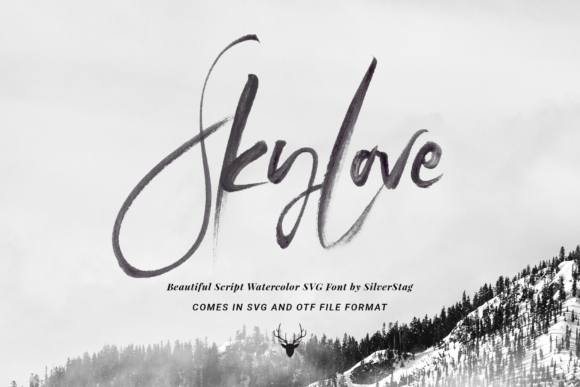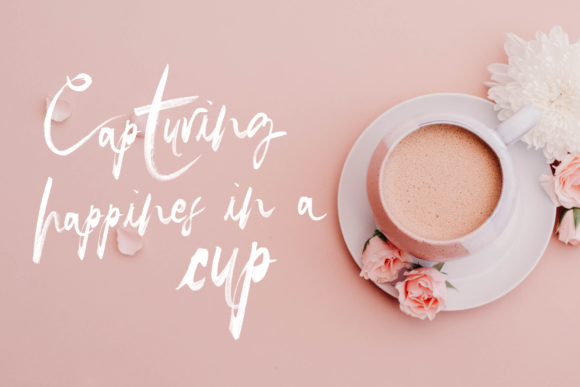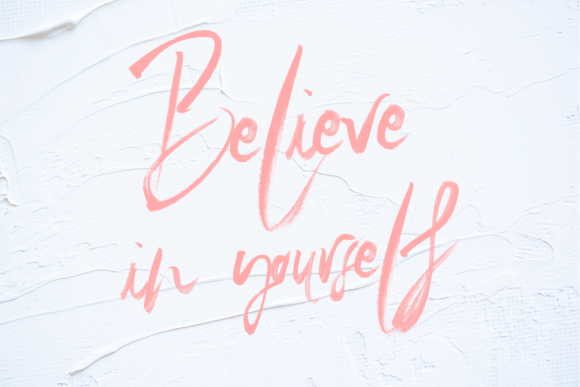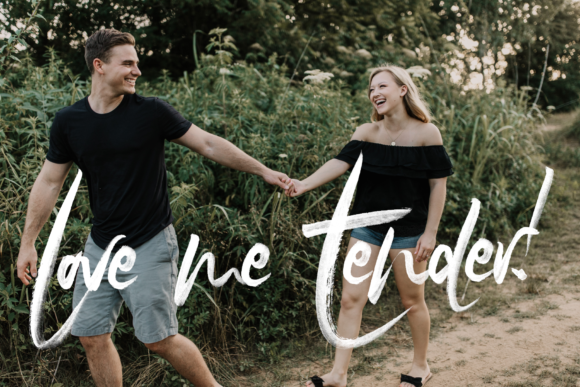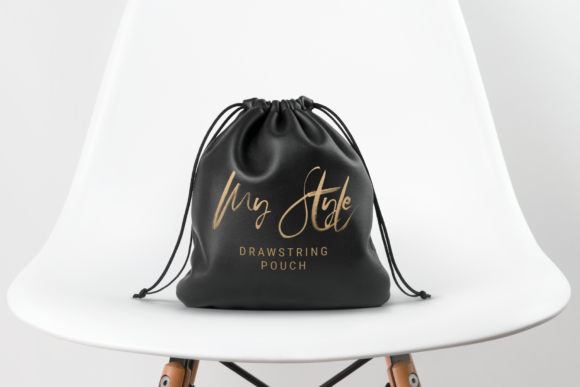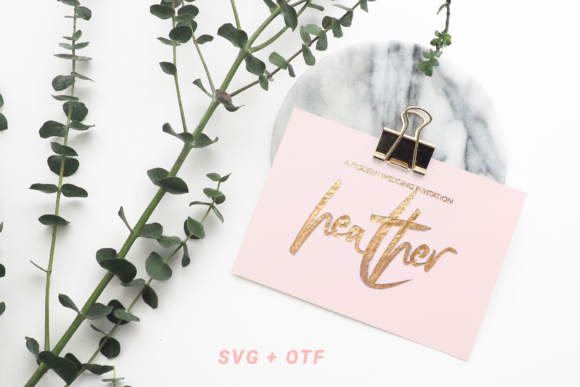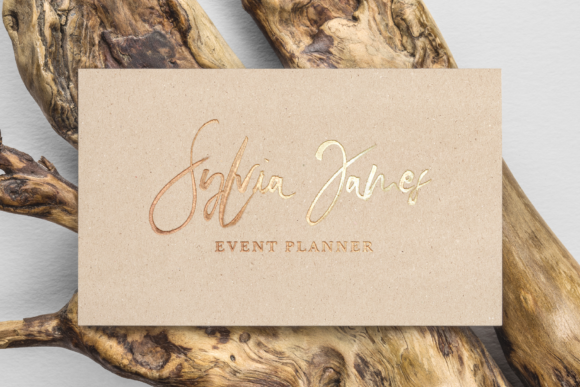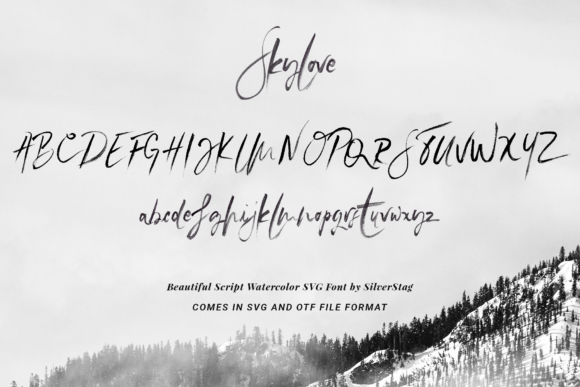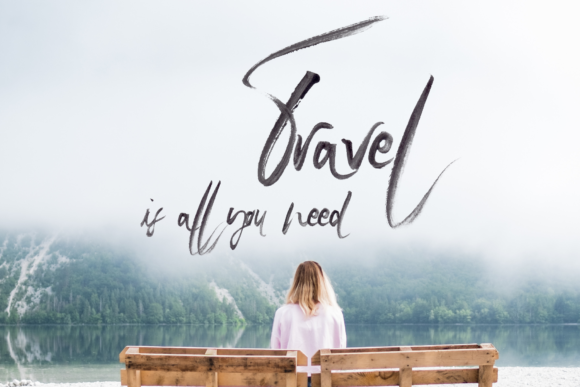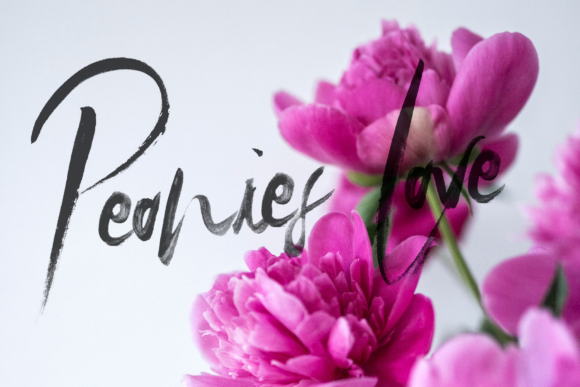
Sky Love Font
About Sky Love Font
Inspired by lovely watercolour art, Sky Love is a beautiful and unique handwritten font with an undeniable charm. Fall in love with its elegant and romantic charm.